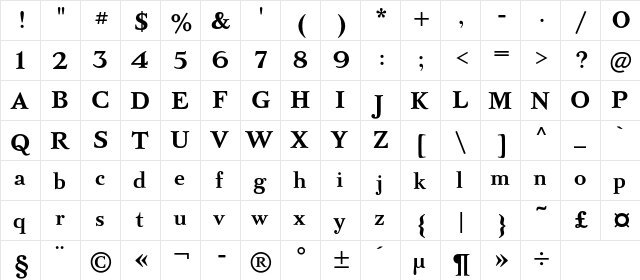
BazhanovC Bold
Design Context for BazhanovC Typeface
BazhanovC takes a measured approach to typography — its balanced proportions and neutral character make it a reliable workhorse for both digital and print work. The heavy weight commands attention and anchors typographic hierarchies.